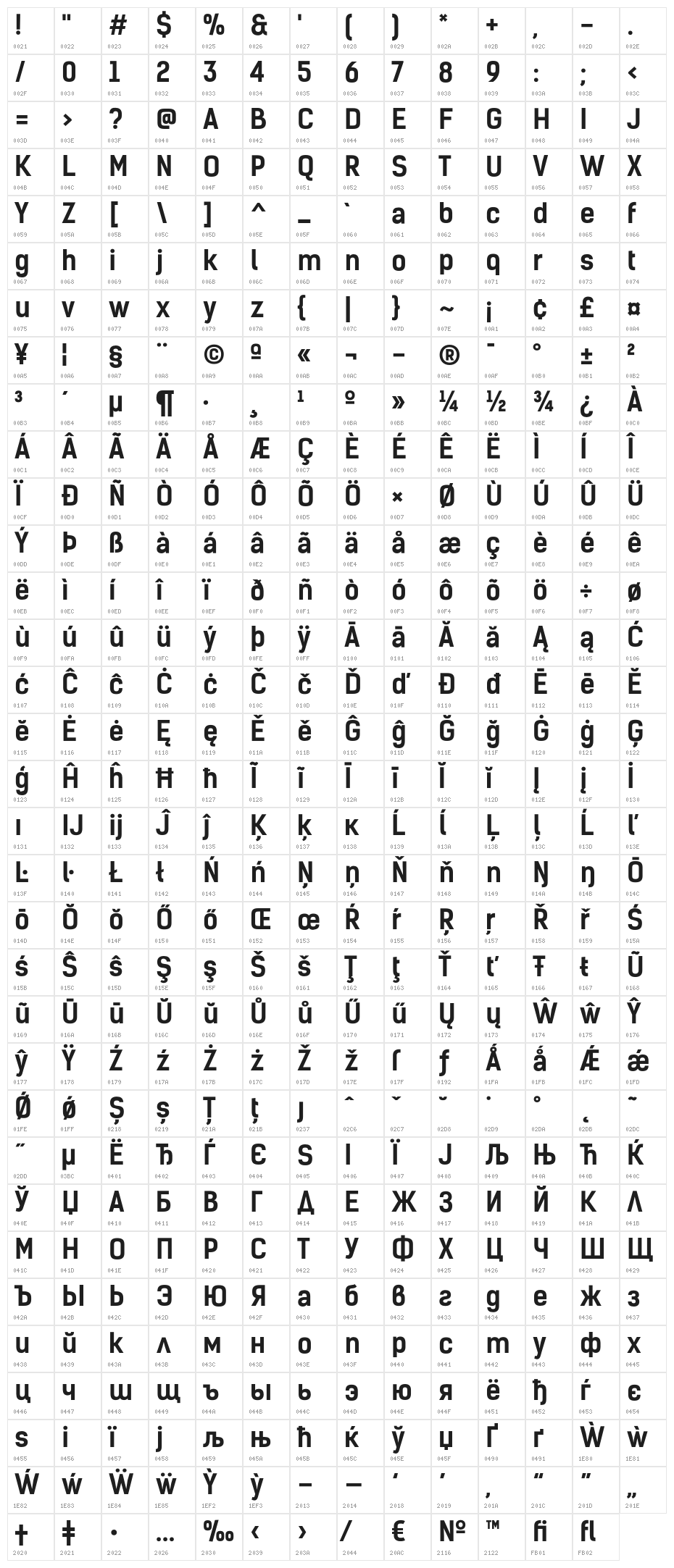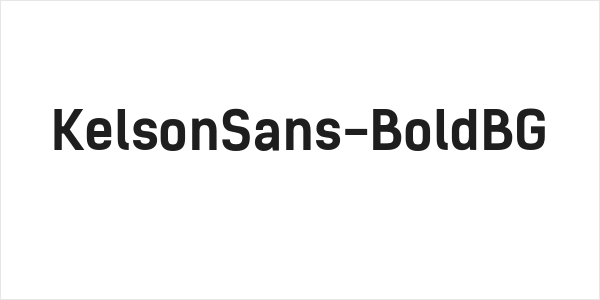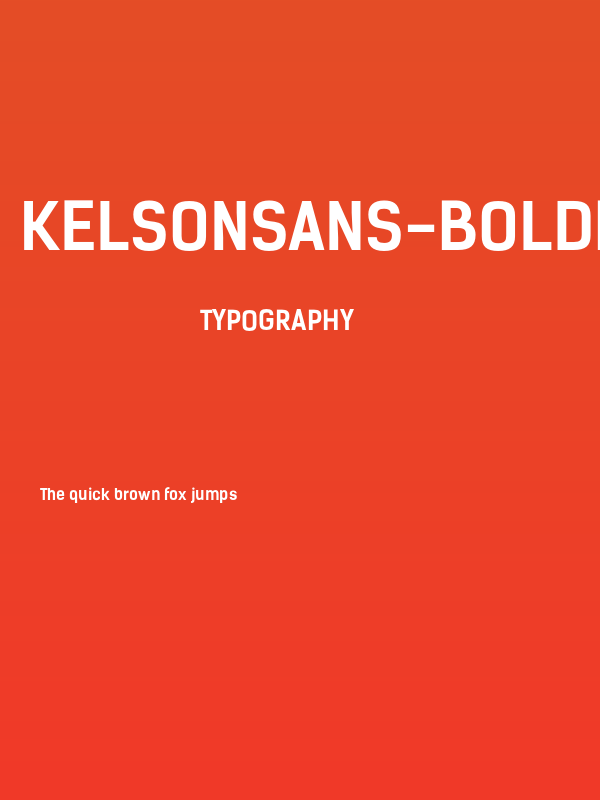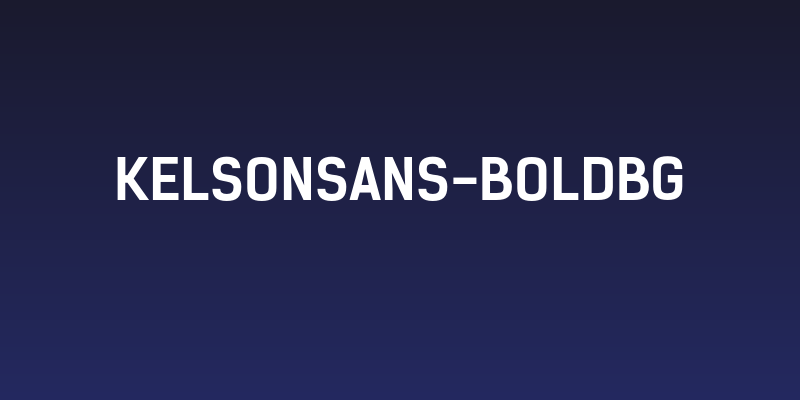
KelsonSans-BoldBG Font
KelsonSans-BoldBG Description
This font features a bold, clean, and modern sans-serif style with a strong geometric structure. The characters are evenly spaced, providing a balanced and harmonious appearance. The uppercase letters are tall and commanding, while the lowercase letters maintain a consistent height, enhancing readability. The numerals are clear and distinct, making them suitable for various applications. Special characters are well-defined, adding versatility to the font. Its bold weight and straightforward design make it ideal for impactful headlines and branding.
| Proposed Projects | Ideal for branding, advertising, headlines, posters, and digital media where a strong, modern presence is required. |